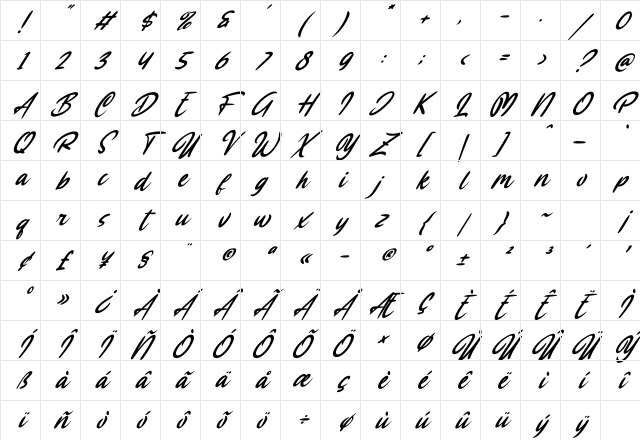
Mas Karebet Italic Regular Free Font
Mas Karebet Italic Regular
Design Context for Mas Karebet Italic
Mas Karebet Italic is a composed and adaptable typeface that performs quietly and consistently across a wide range of design contexts. The slanted form adds forward momentum and visual energy.
Pro Tip: Use Mas Karebet Italic for emphasis, pull quotes, and subheadings where its slanted energy can add rhythm to the layout.